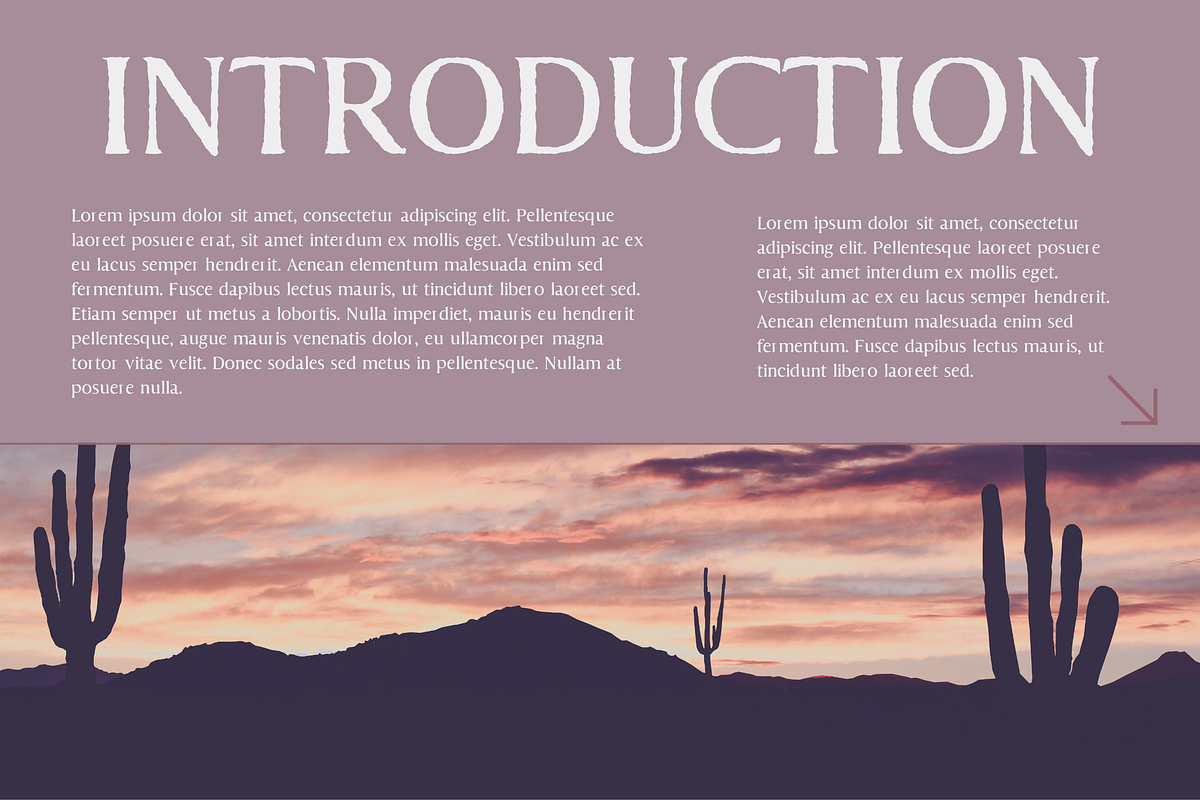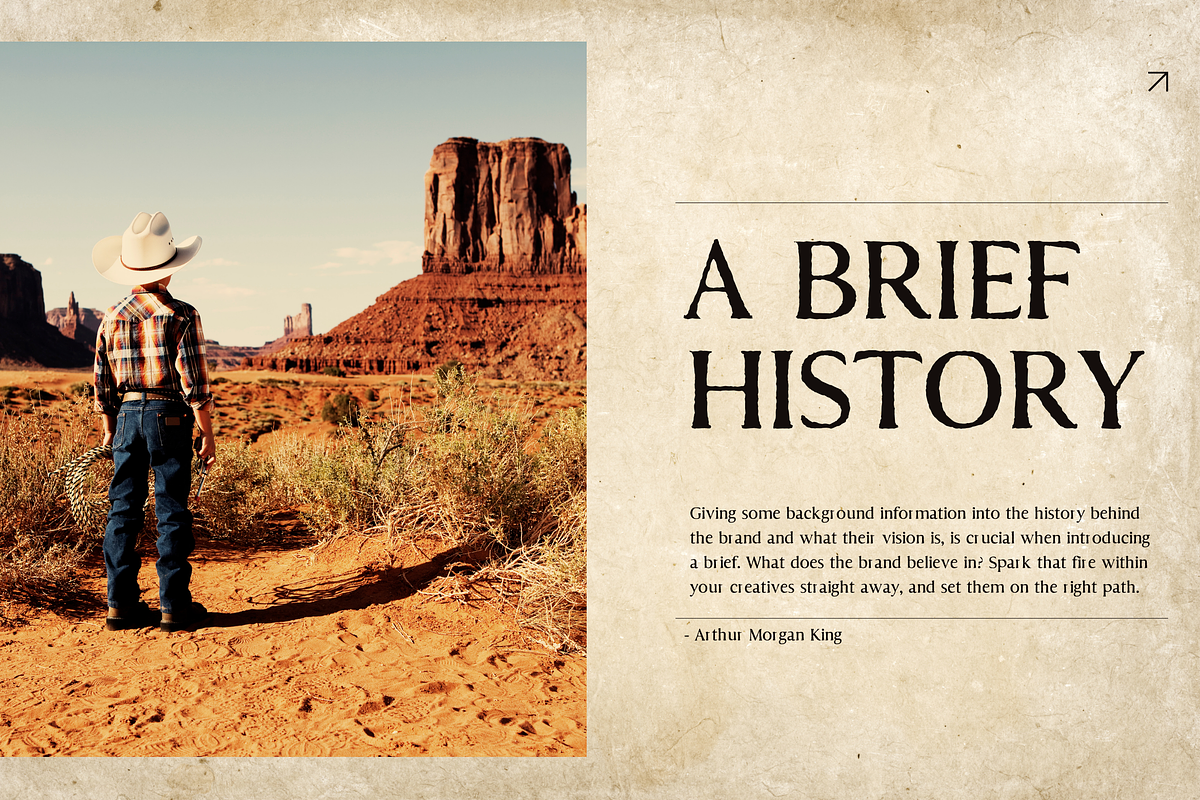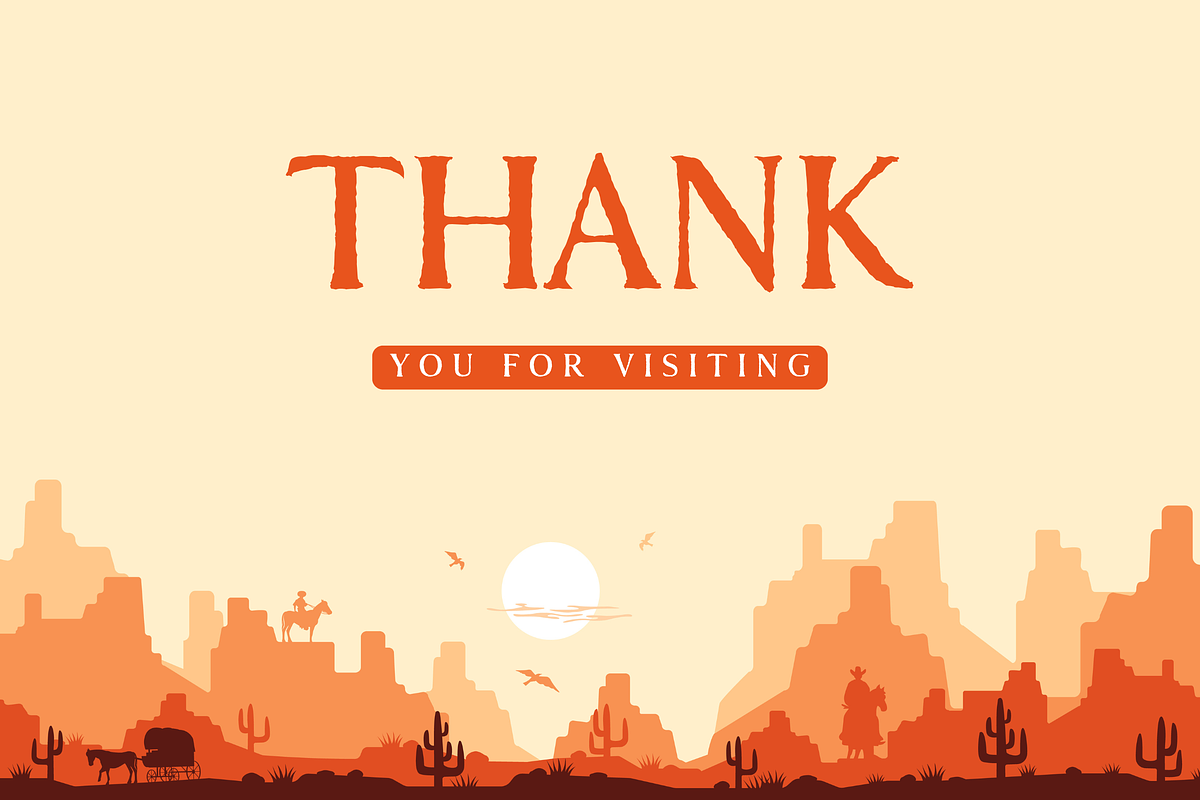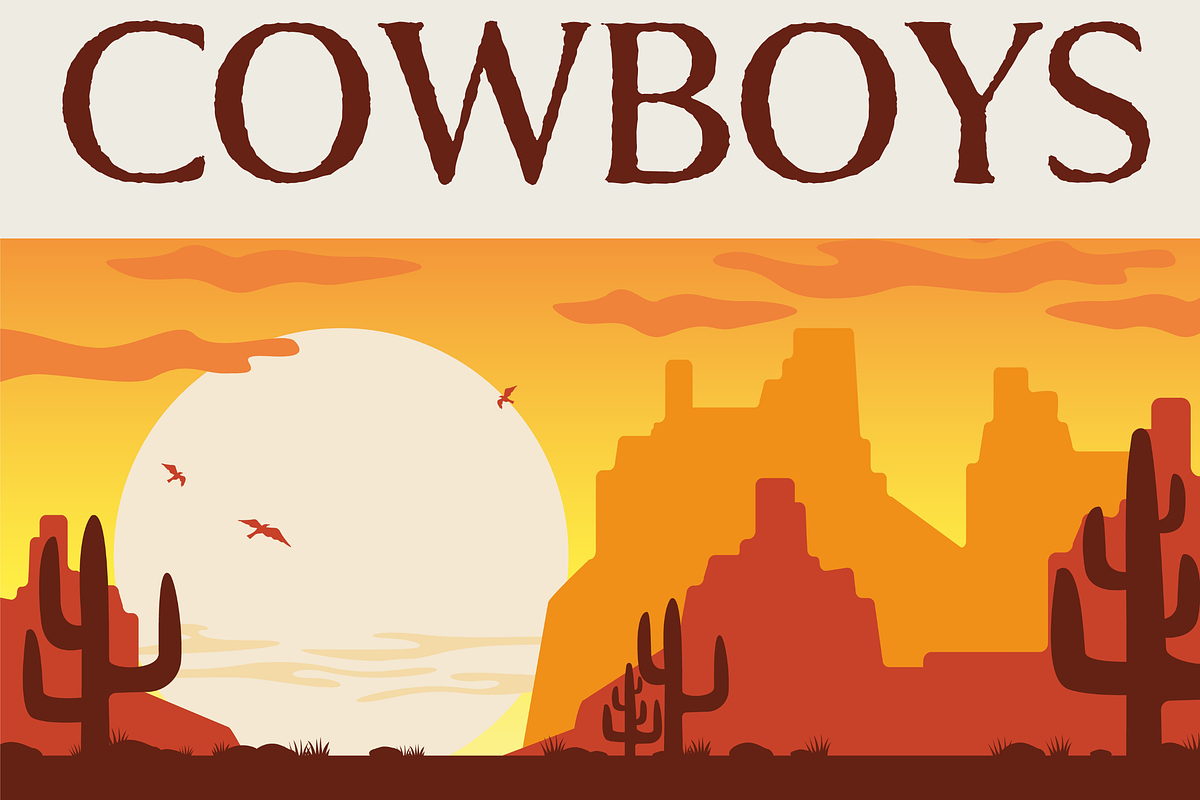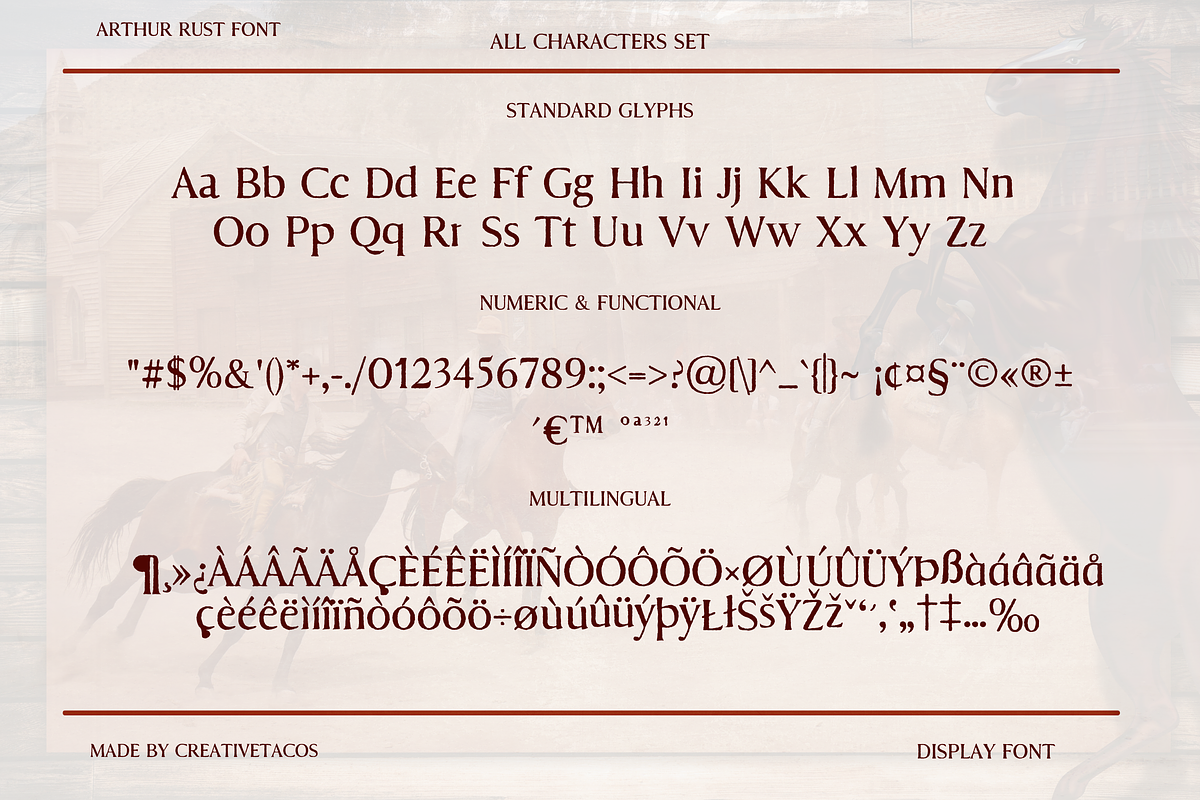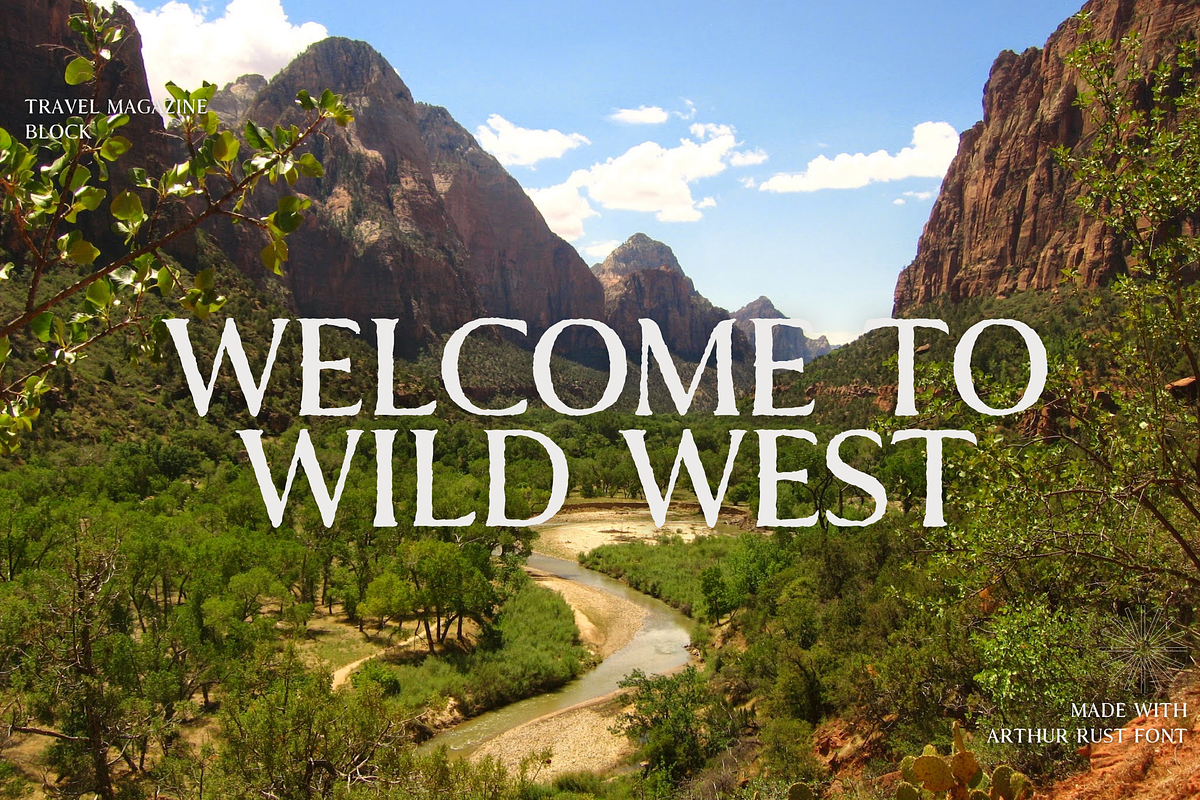
Arthur Rust - A Western Serif Font
🌄 Step into the Wild West with Arthur Rust, a display serif font that whispers tales of dusty trails and golden sunsets. Launched in 2025, this typeface is more than just a font—it’s a journey back to the rugged charm of the frontier, reimagined for today’s creative pioneers.
Crafted with love by CreativeTacos, Arthur Rust dances between vintage elegance and modern grit. Its sweeping serifs and bold letterforms bring an authentic Western vibe to every project, whether you’re designing a rustic poster, a saloon-inspired logo, or a heartfelt invitation. This font doesn’t just speak—it sings the song of the Old West, making your designs unforgettable.
With Arthur Rust, you’re not just getting a typeface—you’re getting a creative companion. It’s packed with everything you need to let your imagination run wild: standard glyphs, numeric and functional characters, and a treasure trove of multilingual support to bring your vision to life in languages far and wide. From the rolling hills of Europe to the vibrant streets of Africa, this font speaks the language of creativity, with support for Afrikaans, Albanian, Catalan, Croatian, Czech, Danish, Dutch, English, Estonian, Finnish, French, German, Hungarian, Icelandic, Italian, Lithuanian, Maltese, Norwegian, Polish, Portuguese, Slovenian, Spanish, Swedish, Turkish, Zulu, and beyond.
- Arthur Rust Regular
- Multilingual Characters to Inspire Global Designs
- OpenType Features (Ligatures, Alternates) for That Extra Spark